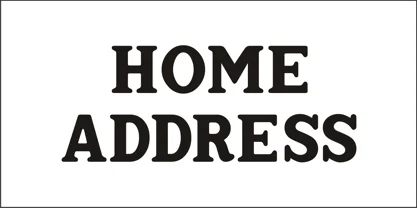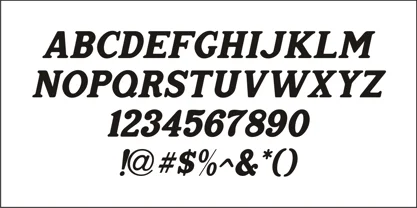
Home Address JNL Font
A good typeface communicates tone before a single word is read. Home Address JNL achieves this through distinctive character without sacrificing readability. The typeface brings a versatile sensibility to a broad range of creative disciplines, with the kind of restraint that lets content lead that holds up whether the work is print-first or screen-first.
In practice, Home Address JNL proves particularly effective for product labels, packaging design, environmental graphics, social media graphics, brand identity systems. Designers reaching for it find that the type decisions feel resolved rather than laboured — a useful quality when client timelines are tight.
The range of applications extends to annual reports, advertising campaigns, editorial layouts, web design. That breadth is deliberate: the proportions and spacing were stress-tested across a wide range of mock briefs before the typeface was finalised.
In-house creative teams at consumer brands find Home Address JNL a reliable choice for projects that demand both personality and restraint. The design avoids the self-conscious quirkiness that dates quickly, settling instead for considered distinctiveness that holds up over time.